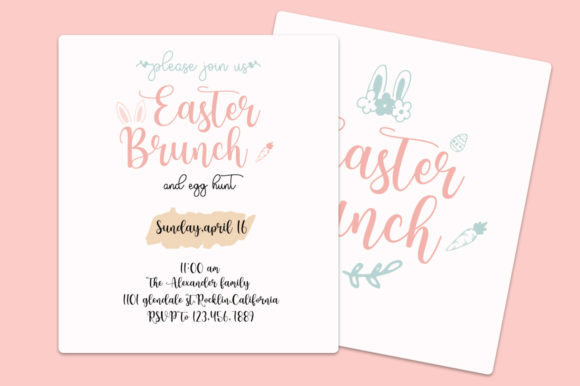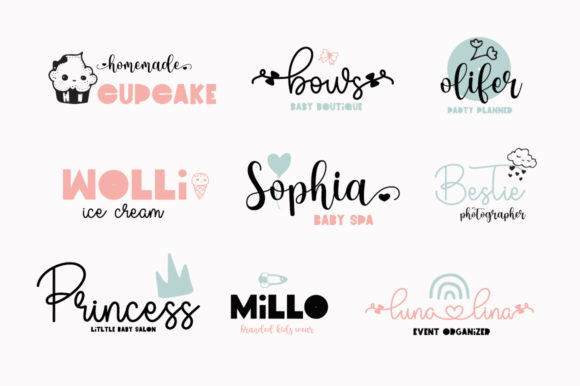
Olive Babybunny Font
db-ku.com - Script & Handwritten -- Olive Babybunny is an elegant and dainty trio styled (sans serif and handwritten) font. This original look will appeal to a wide range of crafty ideas, from letterheads and titles, to stationery.